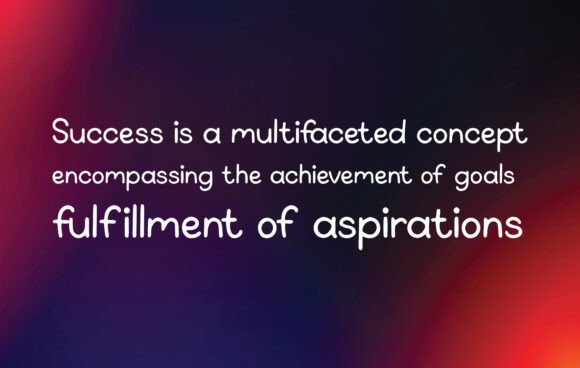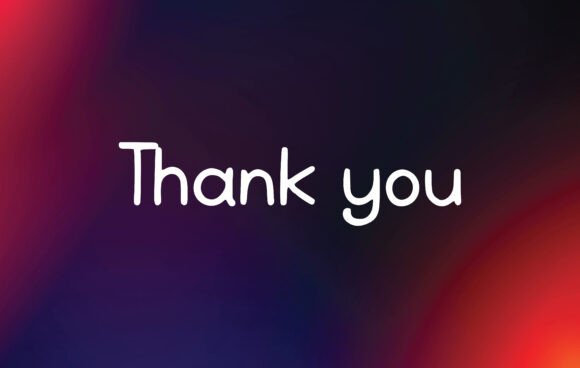
Unlock Your Creativity with the Beautiful Bjorn Font
Have you ever been working on a project, pouring your heart and soul into it, and suddenly, a spark of inspiration hits you? That’s exactly what happened when designers discovered the lovely Bjorn Font. This stunning handwritten font has the power to elevate your creative ideas to new heights, making it a must-have for any design project.
The Bjorn Font is designed specifically for creating eye-catching logos, branding, and quotes. Its unique and elegant style sets it apart from other fonts, making it a valuable addition to any designer’s toolkit. With the Bjorn Font, you can add a touch of sophistication and personality to your designs, taking them from ordinary to extraordinary.
Bjorn Font Key Features
- Font Family: Bjorn Font is a sans-serif font family designed for digital use.
- Unique Characteristics: Bjorn Font features a clean, modern design with a subtle rounded edge, making it suitable for a wide range of digital applications, including websites, mobile apps, and digital signage.
Bjorn Font Review
As a designer, I’ve had the chance to work with the Bjorn font, and I must say, it has its charm. Here are my honest thoughts:
- Unique Character**: Bjorn has a distinct personality that can add a touch of whimsy to your designs. Its quirky feel makes it perfect for projects that require a playful tone.
- Readability**: Despite its unusual design, Bjorn is surprisingly readable, especially in larger font sizes. This makes it a great choice for headings and titles.
- Flexibility**: Bjorn comes in a range of weights and styles, giving you plenty of options to customize your designs and match the tone of your project.
- Not Suitable for Body Text**: While Bjorn is great for headings and titles, it’s not the best choice for body text. Its irregular shapes can make it difficult to read in smaller font sizes.
- May Not Be Accessible**: Bjorn’s unique design can make it challenging for people with visual impairments to read. Be sure to consider accessibility when using this font.
Overall, I think Bjorn is a great choice for projects that require a unique, playful tone. While it has some limitations, its flexibility and readability make it a solid option for designers looking to add some personality to their designs.
Bjorn Font is suitable for: